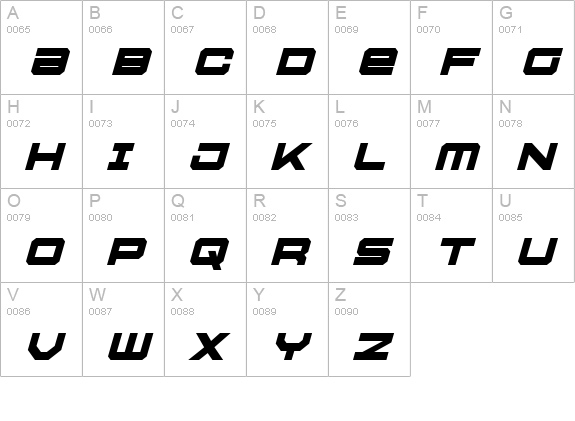
U.S.S. Dallas Bold Italic is a strong, high-contrast, italic variant in the U.S.S. typeface family \xE2\x80\x94 well suited to headlines, attention-grabbing titles, and strong calls-to-action.
The U.S.S. Dallas Bold Italic font is a striking and modern typeface that exudes confidence and sophistication. Its bold and italicized design adds a touch of flair to any project, making it perfect for headlines, logos, and branding materials. With its clean lines and sleek curves, this font commands attention and leaves a lasting impression. Best of all, the U.S.S. Dallas Bold Italic font is available for free download at FontsMarket.com. Whether you're a graphic designer, a blogger, or a small business owner, this font is a valuable addition to your font library. Don't miss out on the opportunity to enhance your projects with this versatile and eye-catching typeface. Download the U.S.S. Dallas Bold Italic font today and take your designs to the next level!